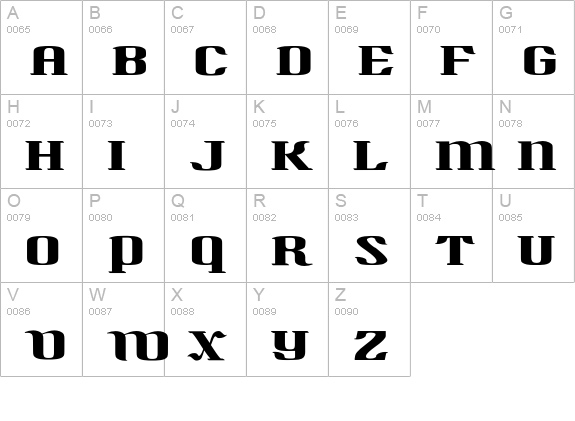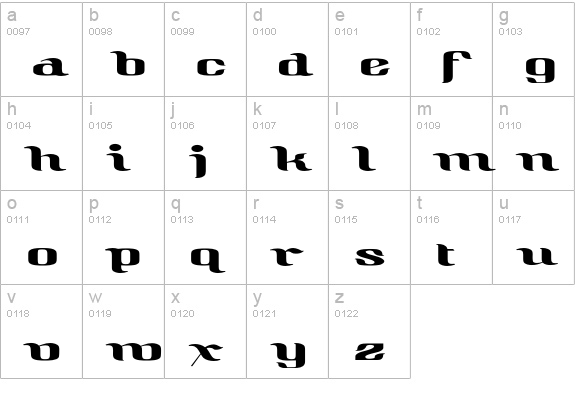
Introducing Philadelphia font, a stunning typeface that exudes elegance and sophistication. This font is the perfect blend of classic and modern design elements, making it a versatile choice for any project. With its clean lines and graceful curves, Philadelphia font adds a touch of refinement to your designs. One of the most remarkable features of Philadelphia font is that it is absolutely free. Yes, you read that right – this premium font is freely available to download at FontsMarket.com. Now, you can elevate your designs without breaking the bank. Whether you're a professional designer or a DIY enthusiast, Philadelphia font is a must-have in your font collection. From logos and branding materials to invitations and website headers, Philadelphia font effortlessly captures attention and leaves a lasting impression. Its timeless appeal and legibility make it suitable for a wide range of applications. The extensive character set of Philadelphia font includes uppercase and lowercase letters, numbers, punctuation marks, and special characters. This comprehensive collection ensures that you have everything you need to bring your creative visions to life. Don't miss out on this incredible opportunity to enhance your designs with Philadelphia font. Download it for free today at FontsMarket.com and unlock a world of endless possibilities. Whether you're designing for personal or commercial use, Philadelphia font is the perfect choice for adding a touch of elegance and style to your projects.